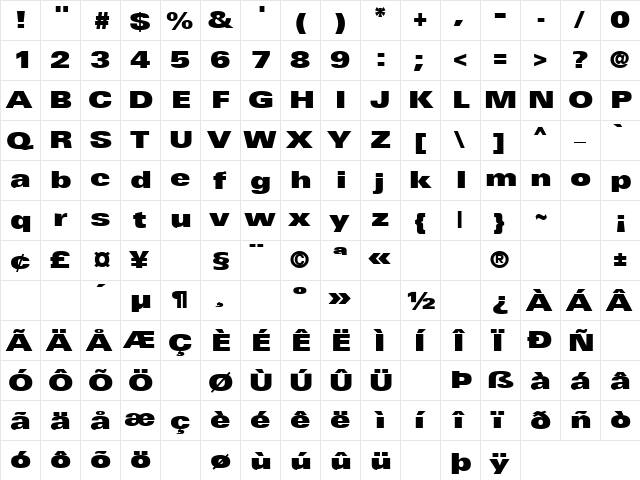
Black Dog 4 Regular
Design Context for Black Dog 4 Typeface
Black Dog 4 takes a measured approach to typography — its balanced proportions and neutral character make it a reliable workhorse for both digital and print work.